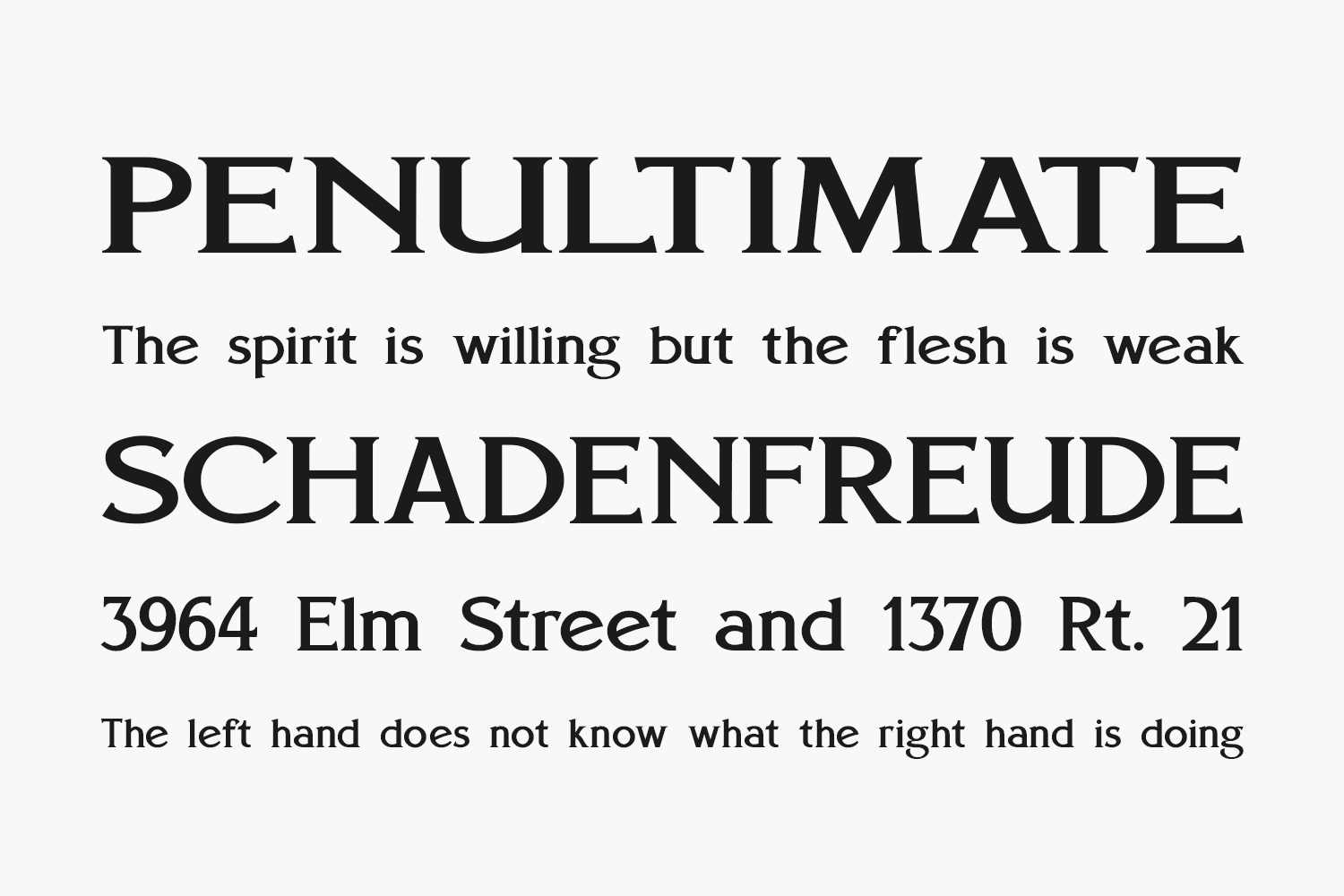
Eboracum free Font is worked up from a partial sample of the same name found in a Delittle wood type sample book dated 1972 and found in a drawer with other wood types in the now-defunct Castle Press.
Designed by Pilaster Davy